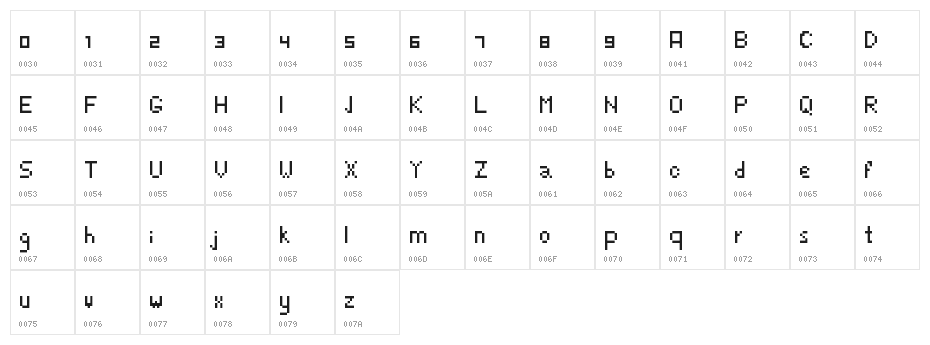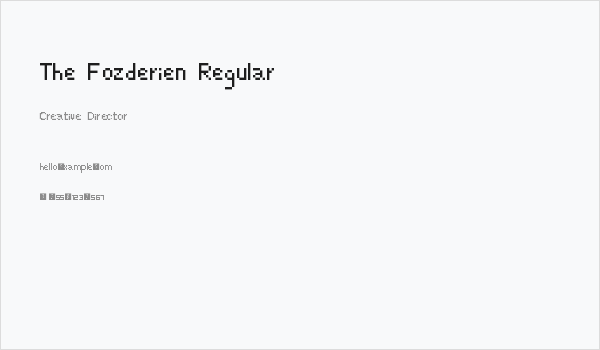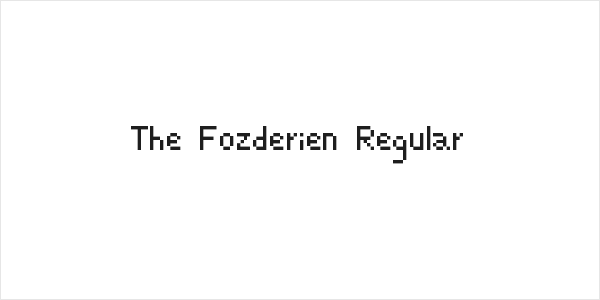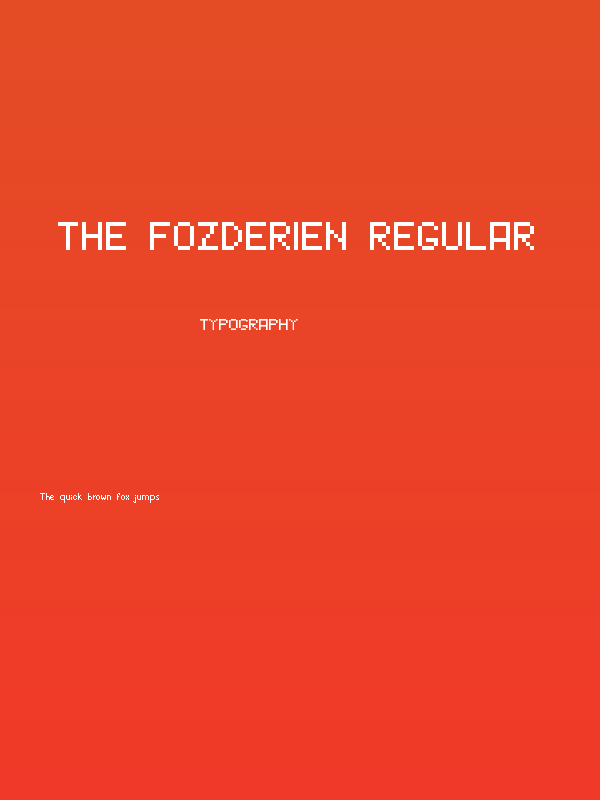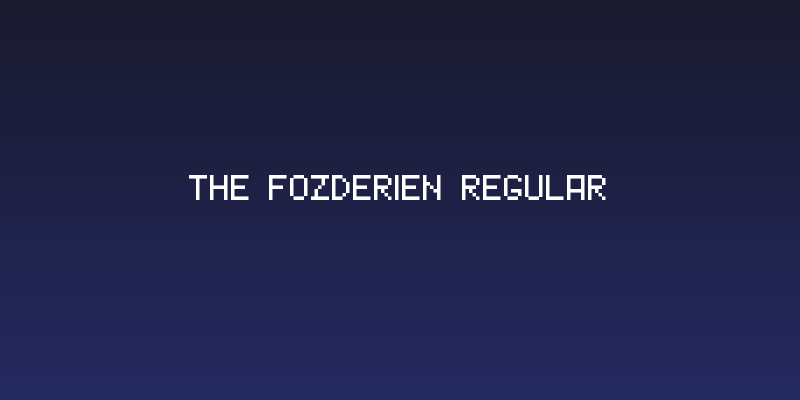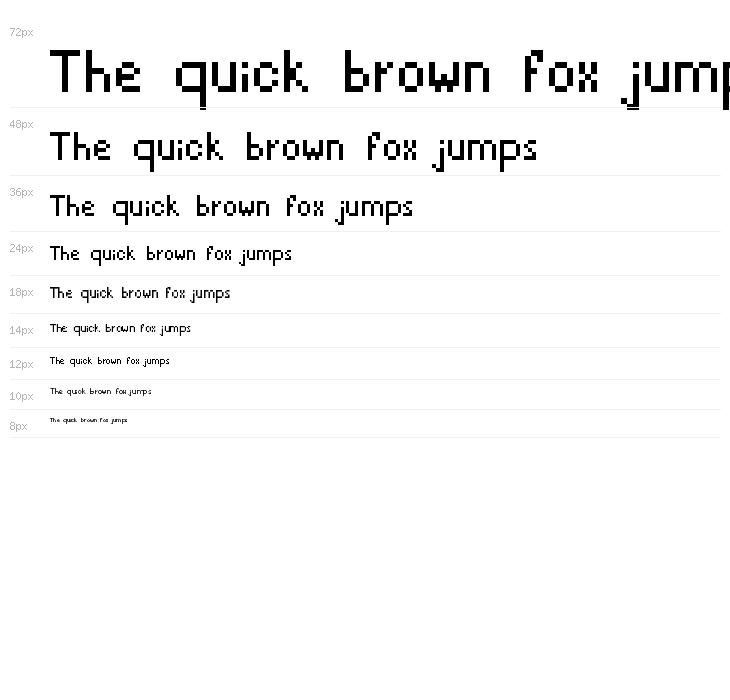
The Fozderien Regular Font
The Fozderien Regular Description
This font features a pixelated, blocky design reminiscent of early digital or video game typography. Each character is composed of square blocks, giving it a distinctly retro and digital feel. The uppercase and lowercase letters maintain a consistent height, contributing to a uniform appearance. Numbers and special characters are designed in the same pixelated style, ensuring a cohesive look across all glyphs. The font's simplicity and geometric nature make it highly legible, even at smaller sizes, while its unique style adds a playful, nostalgic touch.
| Overall Style | Retro, Digital |
| Use Case | Headlines, Logos, Digital Art |
| Proposed Projects | Ideal for video game design, retro-themed graphics, digital art projects, and any creative work seeking a nostalgic or playful touch. |